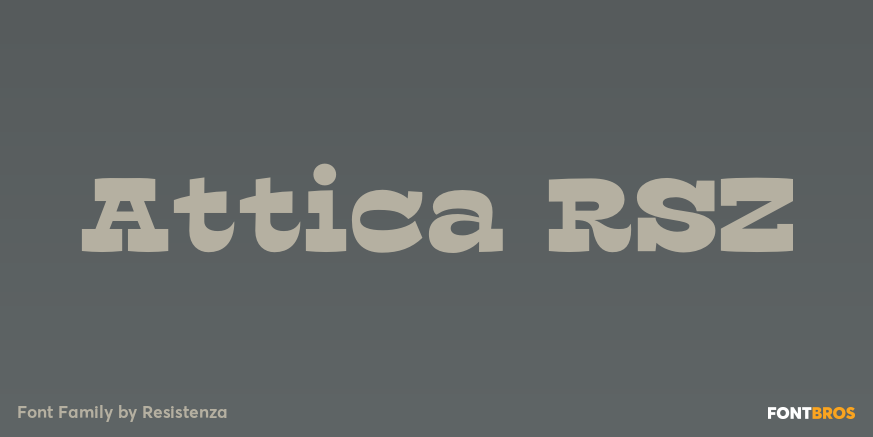
Attica RSZ
Attica is a slab typeface with inverted contrast that was inspired by Caslon\’s Italian type and by Aldo Novarese\’s Estro, published by the turinese foundry Nebiolo. We wanted to develop a wood type typeface and we designed the complete alphabet with a…